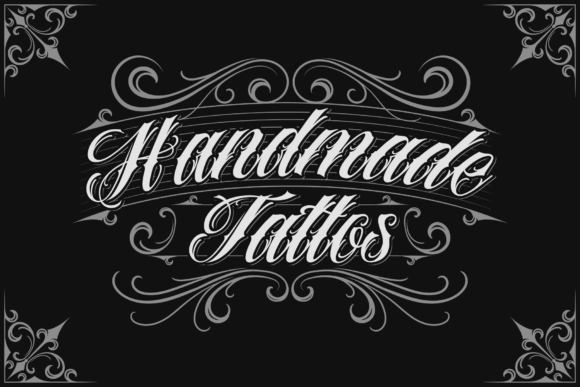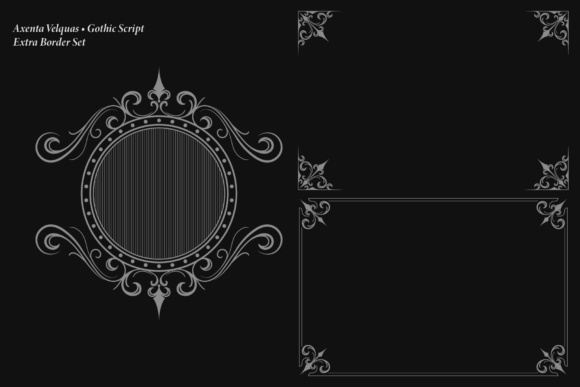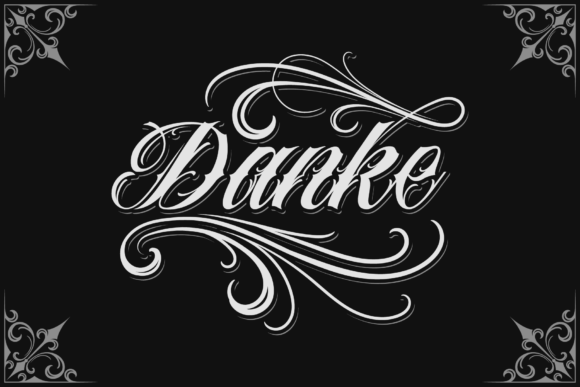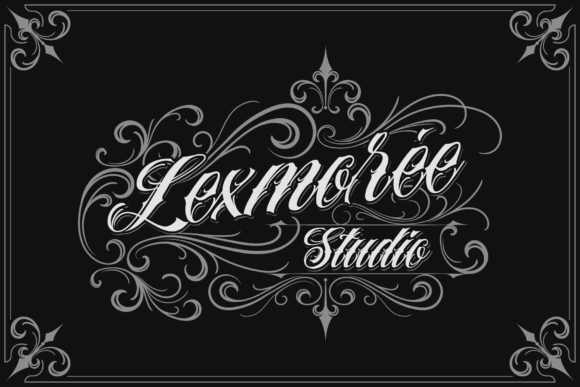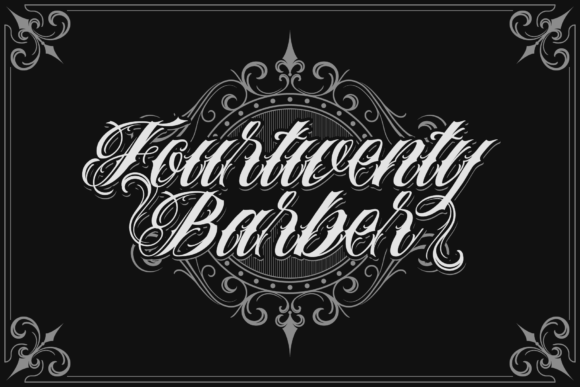
Axenta Velquas Font
About Axenta Velquas Font
Axenta Velquas is a victorian handwritten font. It looks stunning on wedding invitations, thank you cards, quotes, greeting cards, logos, business cards and every other design which needs a handwritten touch.